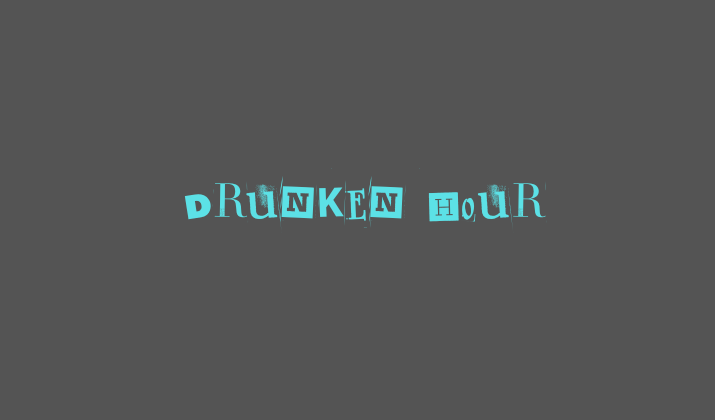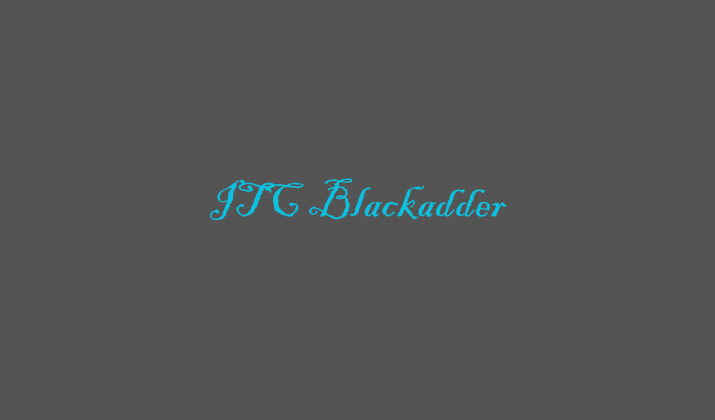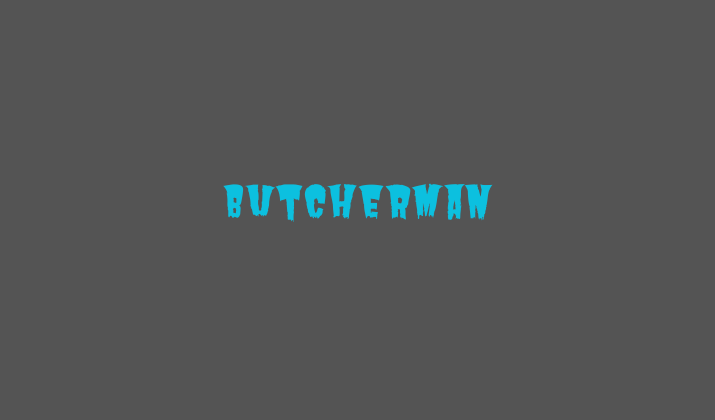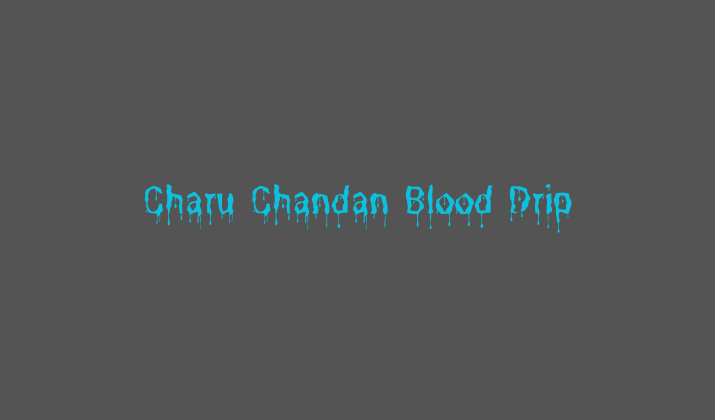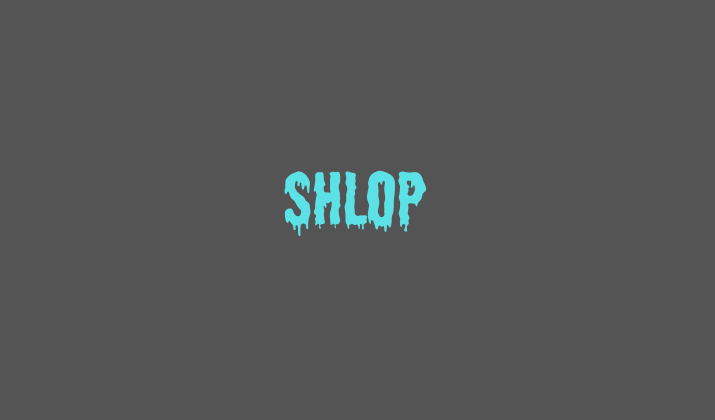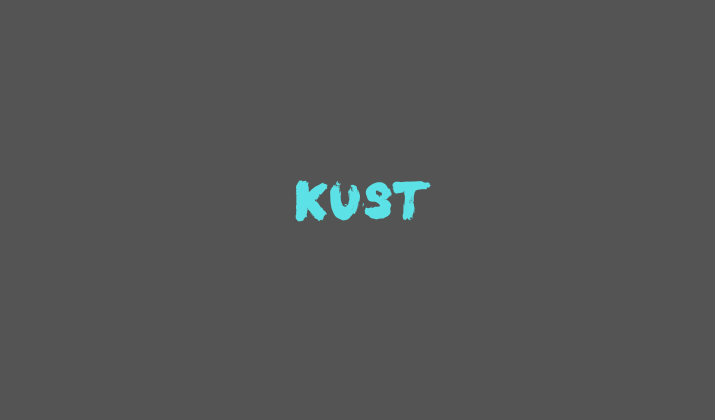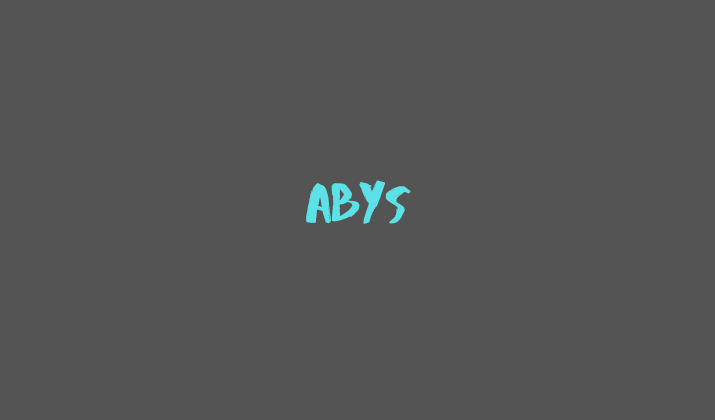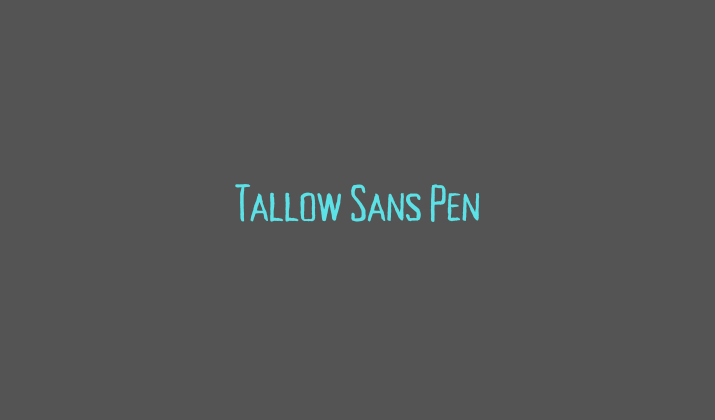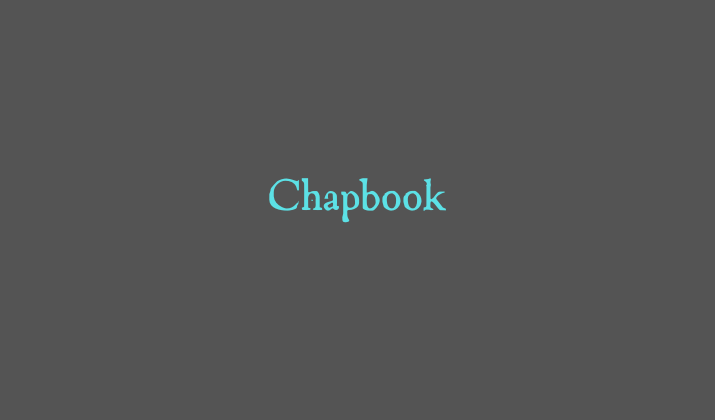
It has plenty of amazing Harry Potter fonts that you can use. In addition, if you’re making a design for Halloween or any kind of spooky event at any time of the year, Canva offers many options.
Today, we will be looking at the best Harry Potter fonts on Canva. All the fonts in this article are free to use.
1. Drunken Hour
The Drunken Hour font is one of the best Harry Potter fonts on Canva. It is characterized by highly irregular, wobbly, and strange strokes and letters.
It gives off a haunted, magical feeling. Some of the letters have blotches on it to add an even spookier feeling.
The tilted letters make it seem off balance. It’s perfect for posters, events, and parties, especially for ghost or spooky themed events.
2. ITC Blackadder
ITC Blackadder is the perfect Harry Potter font. It’s also great for Halloween.
With jagged, spiky letters, ITC Blackadder gives off a spooky and magical vibe that is hard to describe in person, just like the powers of a wizard. You have to see it for yourself to believe it.
It’s a fantasy font that is great for imaginary worlds of magic and wizardry. It definitely has one of the most Harry Potter-like vibes of all the fonts available on Canva.
3. Butcherman
Another one of my favorite Harry Potter fonts on Canva is Butcherman. Butcherman is a horror font.
Its letters look like they were cut with a sharp knife, leading to a jagged and heart-stopping appearance. It gives off a sense of danger and foreboding, leaving you to wonder what’s coming next.
It invokes a feeling of general unease. It makes your heart jump a beat!
Butcherman is great for Harry Potter designs and Halloween designs in general. I like using it in red, as shown in the screenshot above, but you can use it in black or any other color as well.
4. Charu Chandan Blood Drip
Charu Chandan Blood Drip, as the name suggests, is a font that makes its letters look like they are dripping blood, making it perfect for Harry Potter, Halloween, and other scary and spooky themes.
It’s gruesome, ghastly, and horrifying. It’s spooky, surreal, and dreadful.
Charu Chandan Blood Drip comes in two styles: Regular and Bold. Use the Bold version if you want to convey a somewhat stronger, bolder message.
5. Charu Chandan HardStroke
Charu Chandan’s HardStroke captures the spellbound charm of handwritten fantasy lettering without tipping into parody.
The strokes feel uneven in a deliberate, wand-scribbled way, giving titles a magical, storybook pulse.
It works especially well for Harry Potter–inspired posters, fan art, party invites, and whimsical social graphics.
While it’s not ideal for long paragraphs, it shines in short headlines where character matters more than polish, adding instant wizardly atmosphere.
6. Shlop
Shlop is another font that oozes and melts. If you use a red font, it makes it look like it’s dripping with blood.
If you use a black or gray color, on the other hand, it looks a bit less gory.
Regardless, it’s a great font if you are looking for a grotesque font to use for your Harry Potter themed posters and designs. It is dark, eerie, spooky, and magical.
7. Kust
The Kust font channels a playful, hand-drawn fantasy vibe that feels inspired by magical worlds without copying the original movie typeface.
Its slightly jagged edges and uneven letterforms give designs a quirky, enchanted personality.
Kust works best for headings, quotes, and themed posters where you want a light, whimsical touch. It’s easy to read at larger sizes and adds charm to Harry Potter–style projects without feeling overly dramatic
8. Rubik Beastly
Next up, we have Rubik Beastly, which aims to give off a beastly, scary appearance. With blurred and blotched letters, it gives off the impression of being ghostly.
To make it appear more ghostly and extra worldly, I would recommend using a gray font. A red font can also work well, or you can combine different colors.
Rubik Beastly is a disruptive font. It is bold and rebellious.
9. Abys
Abys is a dark and mysterious font. Its sharp edges add a touch of foreboding to it, giving a sense of dread and fear, as if you’re staring off into the abyss.
It’s perfect for Harry Potter-themed designs.
Invoking a sense of dread, the Abys font on Canva is a good choice for Halloween and spooky tales as well.
10. Tallow Sans Pen
Tallow Sans Pen is a good Harry Potter font to choose if you want something a bit more vanilla.
A lot of the fonts on this page can be a bit over the top.
Tallow Sans Pen, on the other hand, is a calmer font that still has a whimsical vibe and a very subtle touch of mystery. Its sleek, legible characters are both casual and eerie.
11. Chapbook
Next, we have Chapbook.
Chapbook gives off ancient vibes, lending itself to subtle, mysterious suggestions. It’s perfect for Harry Potter themed designs when you don’t want to overdo it with goriness or gruesomeness.
Chapbook is slightly spooky and eerie but still professional.
12. Anahaw
Anahaw is a clean, humanist serif with a calm, scholarly tone that quietly suits Harry Potter style projects.
Its balanced proportions and soft curves feel bookish rather than theatrical, making it great for chapter titles, quotes, and body text on posters.
Anahaw reads well at small sizes, pairs nicely with decorative headers, and brings a subtle wizarding mood without leaning into gimmicks or jagged fantasy strokes.
It’s versatile, professional, and ideal for magical designs needing restraint and clarity.
All of these fonts are great for Harry Potter themed designs. They are also perfect for Halloween and other spooky events.
If you want to add a touch of goriness, pick the one with a fluid touch and change the font color to red.